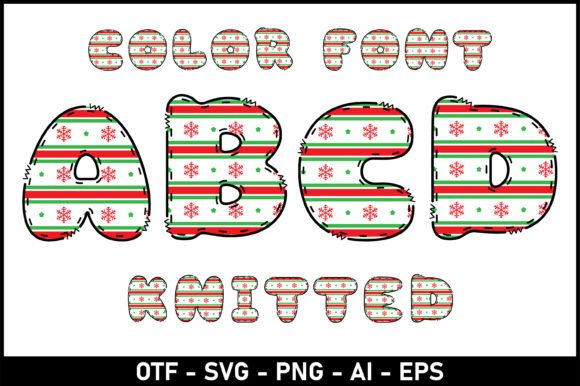
Dive into a world of whimsical beauty with the Knitted Font Family, where colors dance and letters sing. Each font in this collection is a captivating masterpiece, meticulously crafted to ignite your imagination.
Step into a realm where fonts take center stage, where every letter is a brushstroke of artistry. The Knitted Font Family is a visual symphony, a harmonious blend of colors that will leave you spellbound.
These fonts are more than just letters; they are works of art that transform words into captivating expressions. Their vibrant shades and playful designs add a touch of magic to any project, whether it's a children's book, a poster, an invitation, or a greeting card.
Imagine the joy in a child's eyes as they embark on a literary adventure with the Knitted Font Family. Each page becomes a canvas of delight, where words dance and colors ignite their imagination. The whimsical nature of these fonts creates an immersive experience, making reading an enchanting journey.
Unleash your creativity and let your designs bloom with the Knitted Font Family. Their versatility knows no bounds, from playful children's books to eye-catching posters, from heartfelt invitations to warm greeting cards. Each font is a blank canvas, ready to be painted with your unique vision.
The Knitted Font Family is a digital toolbox of endless possibilities. Embrace the freedom to express yourself in a myriad of ways, letting your designs speak volumes with every stroke of the keyboard.
With the Knitted Font Family, you're not just downloading fonts; you're acquiring a treasure chest of artistic expression. Transform your designs into captivating masterpieces, leaving a lasting impression on your audience.